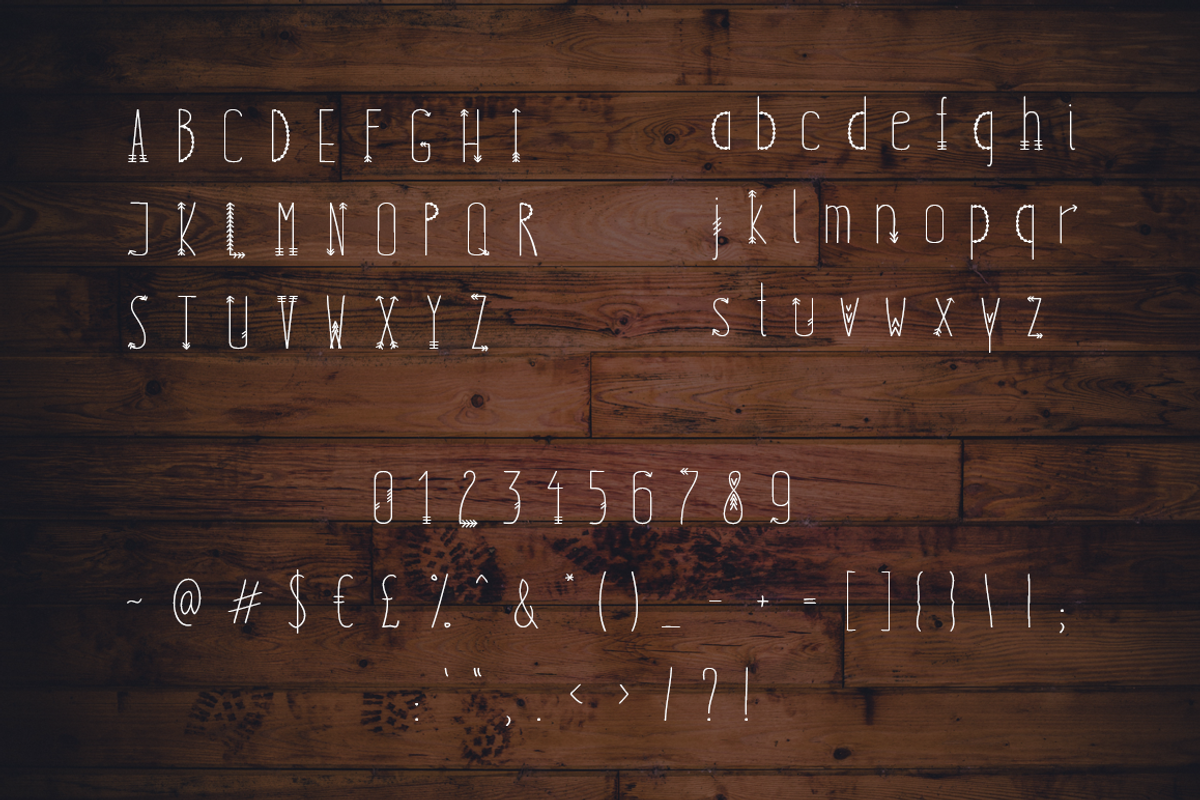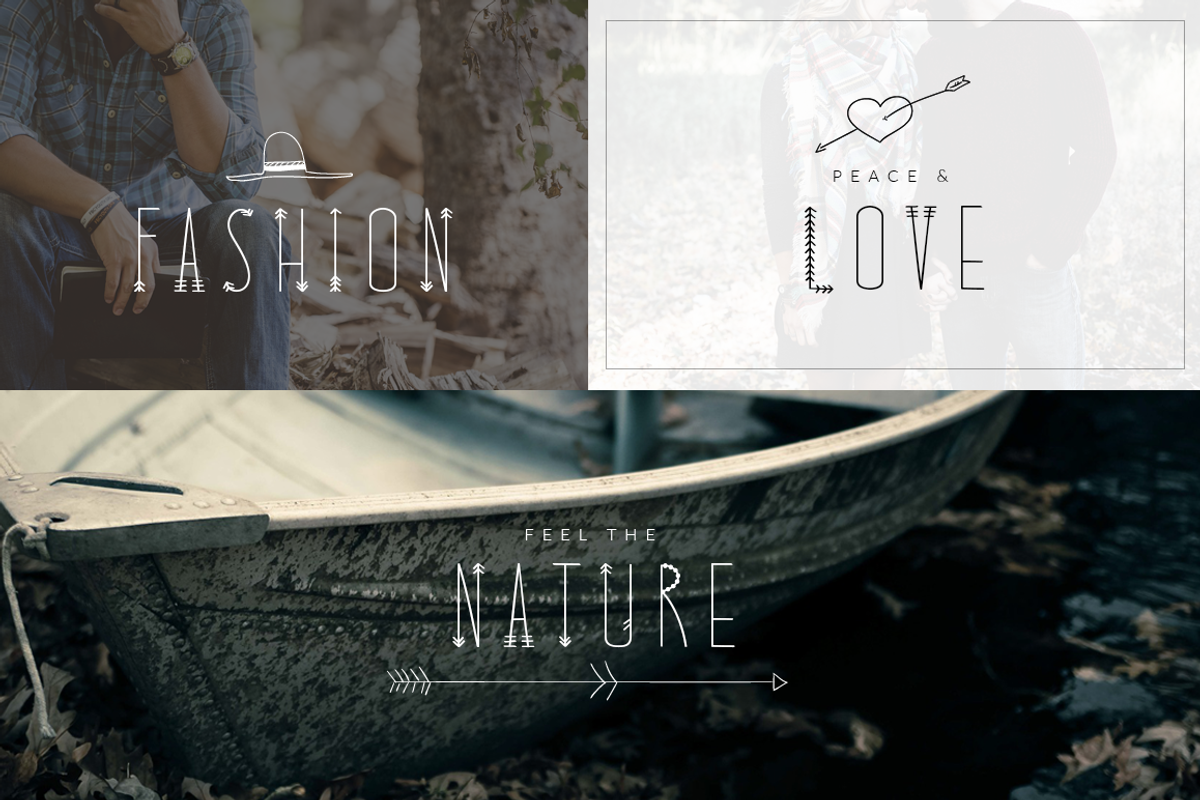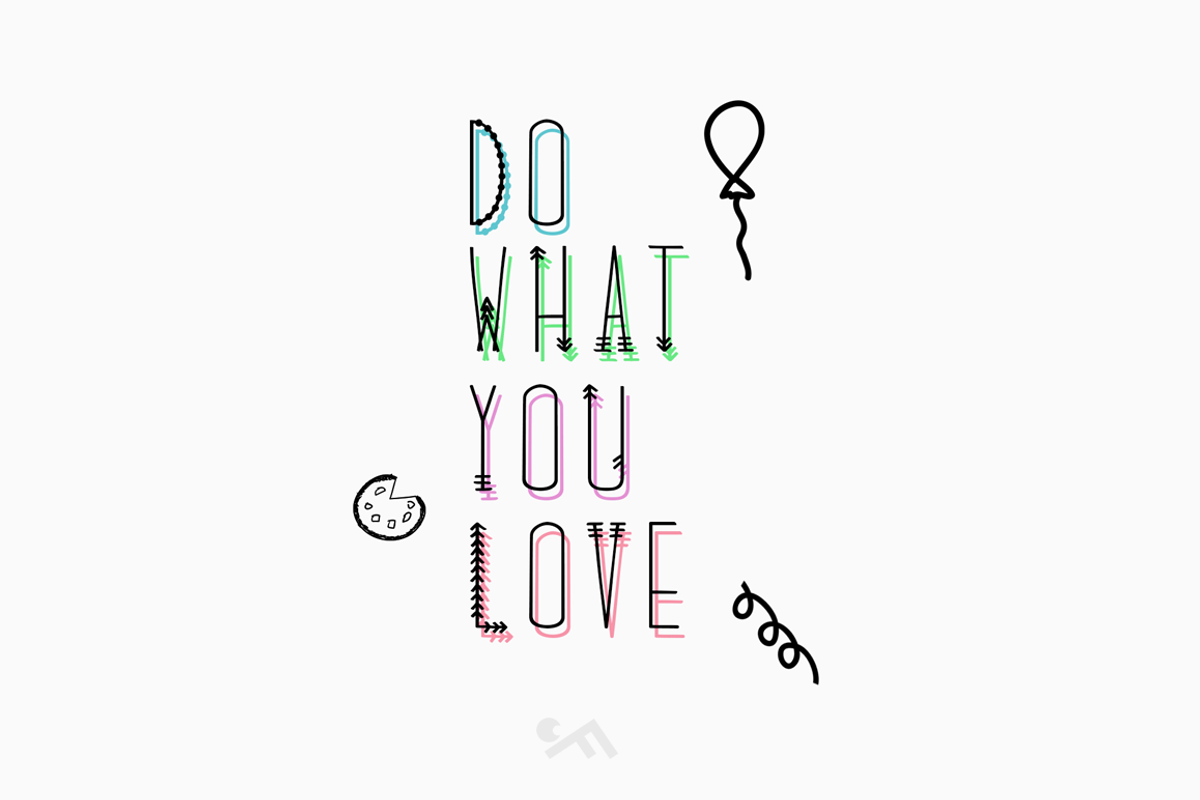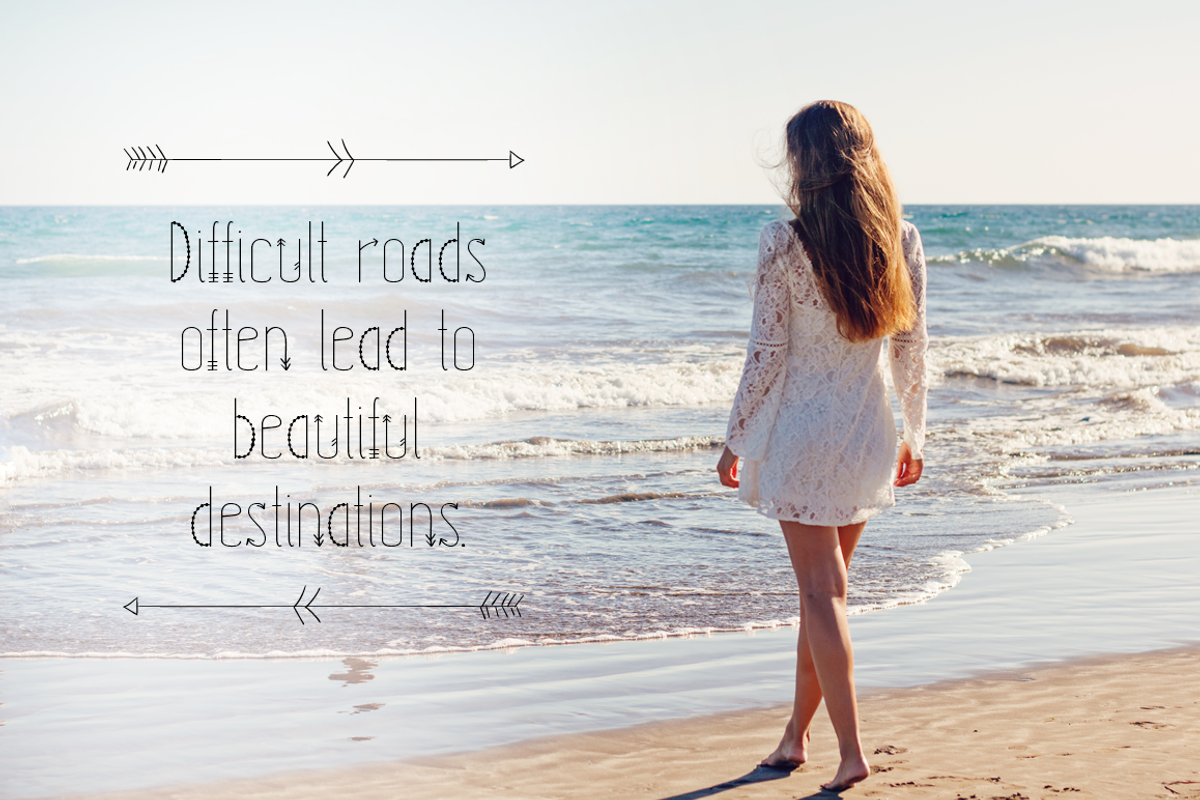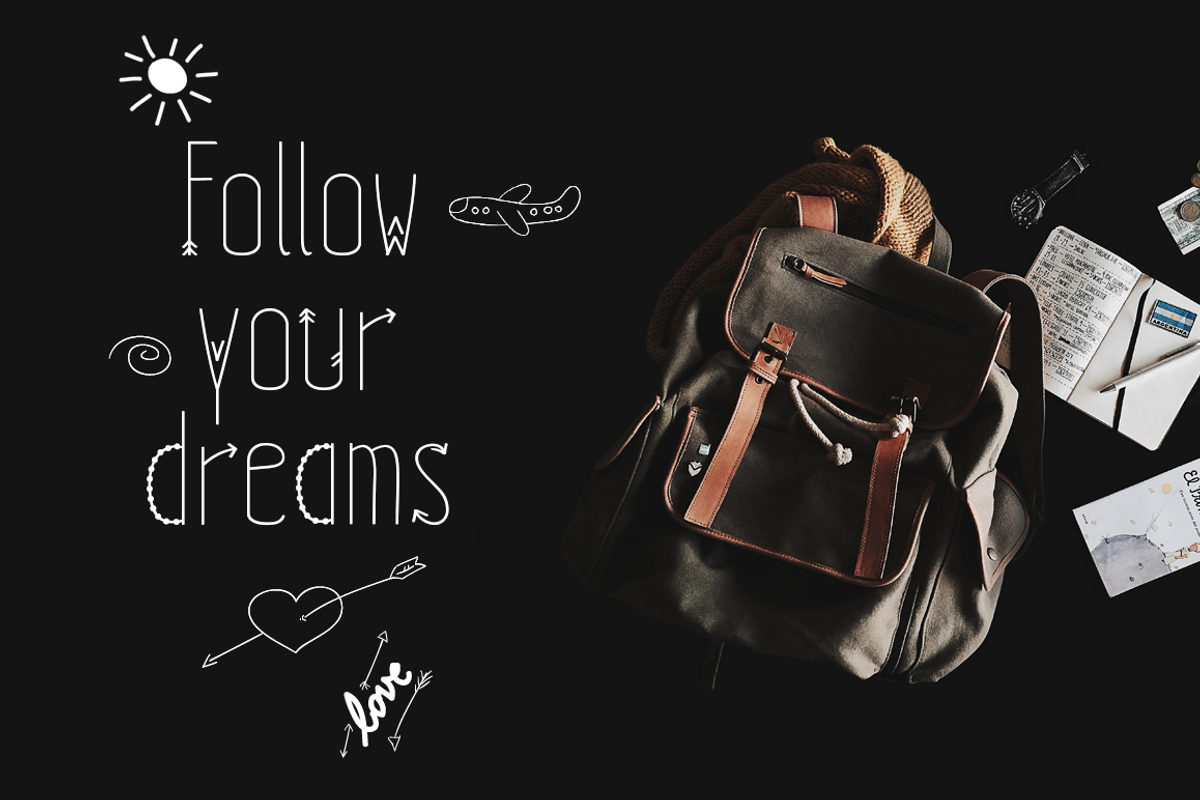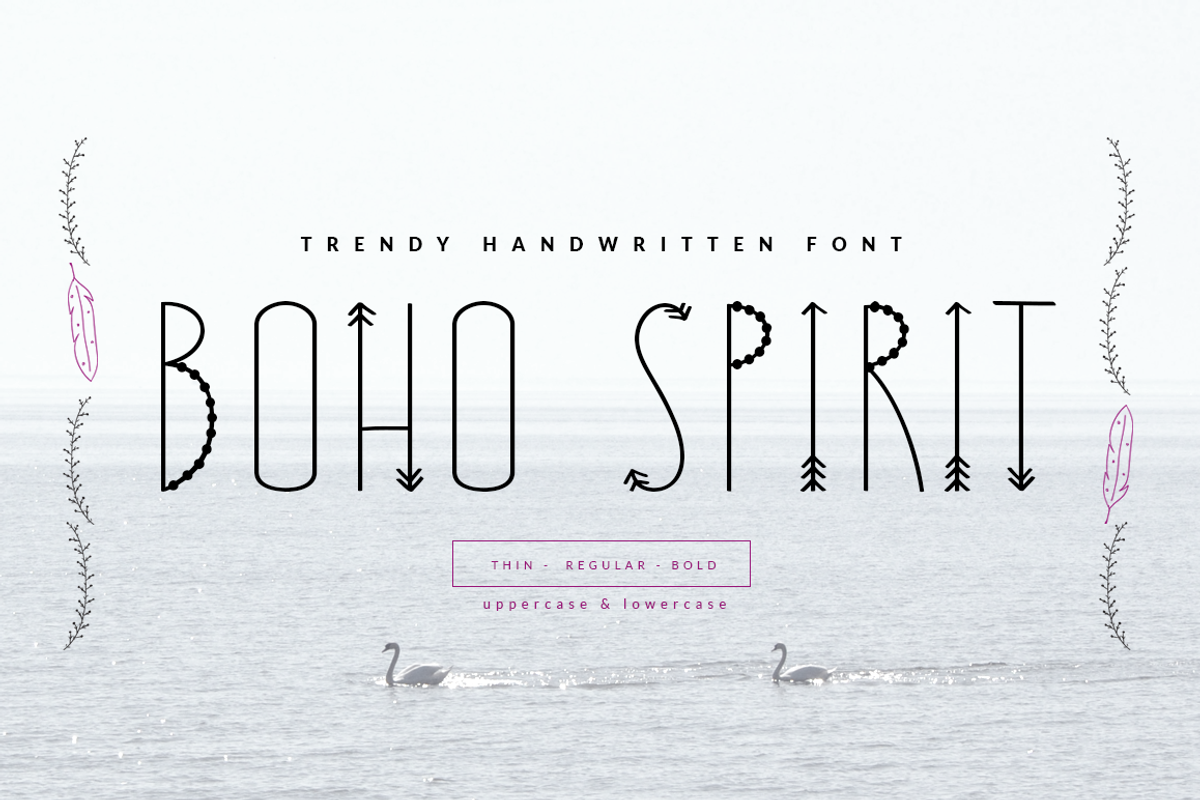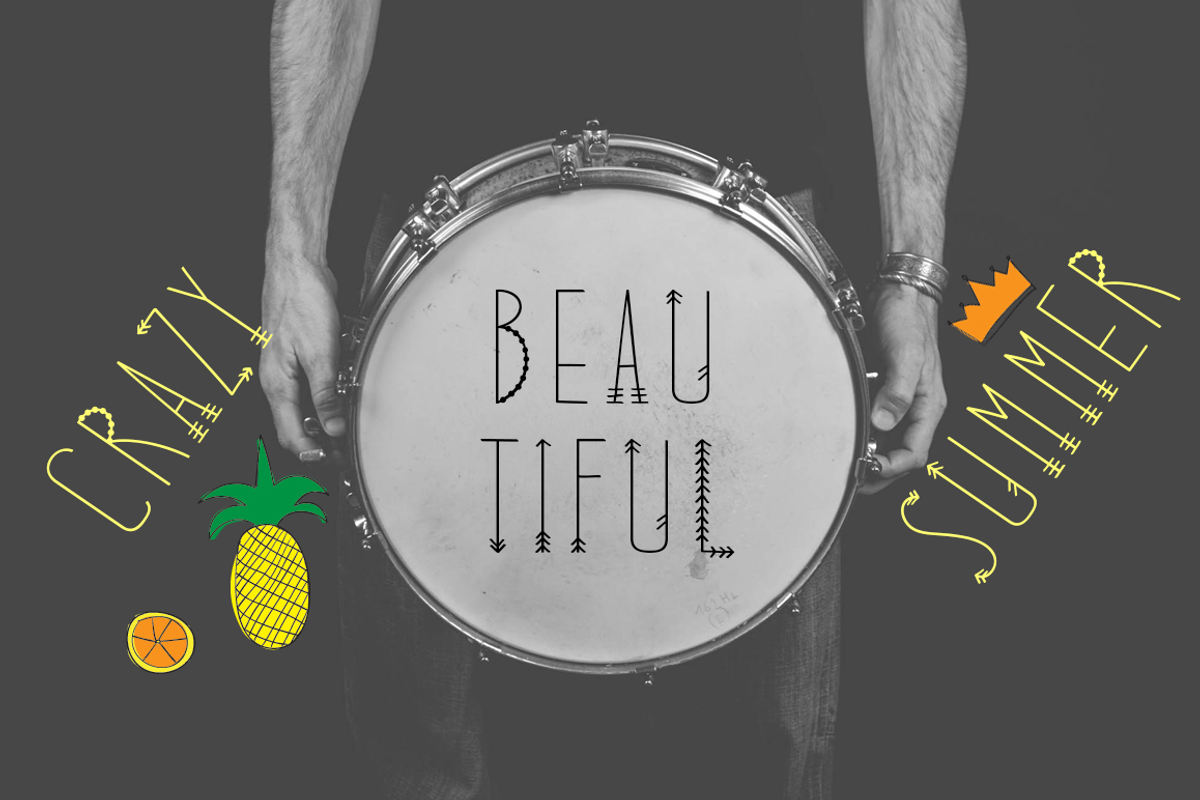
BOHO SPIRIT handwritten font+BONUS
BOHO SPIRIT handwritten font+BONUS by CreativeFolks is a font selected for branding, posters, packaging, typography.
- Introducing bohemian handwritten font "Boho Spirit" with the small 'hipsterical' details (arrows, beads, etc.) on the characters.
- Boho Spirit Thin
- Boho Spirit Regular
- Boho Spirit Bold